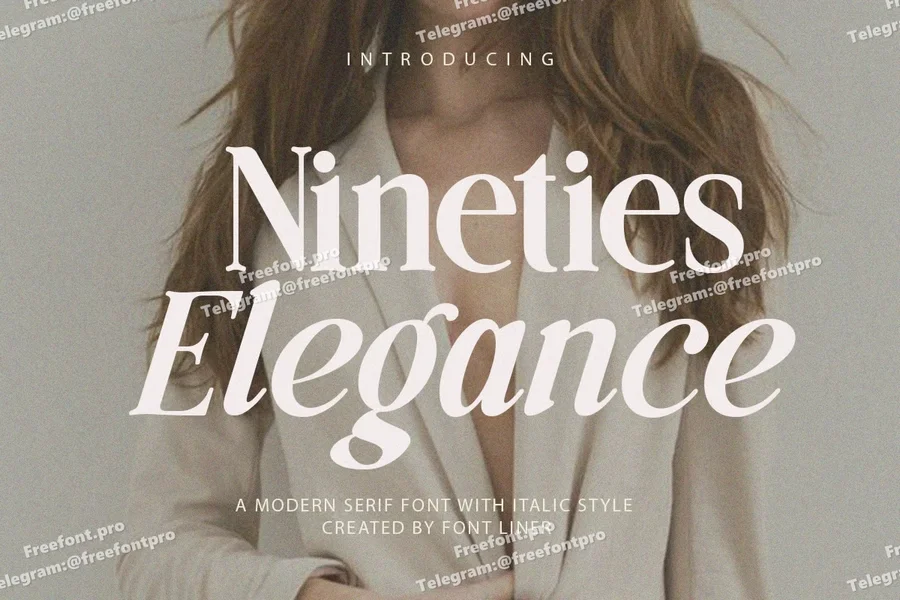
Nineties Elegance – Modern Serif Font
Nineties Elegance is Modern Serif font with a feminine style. This beautiful collection comes with regular and italic versions and will instantly add a touch of class to all your design projects. It is a perfect branding font and will help you create logos, wedding designs and all other commercial projects with ease.